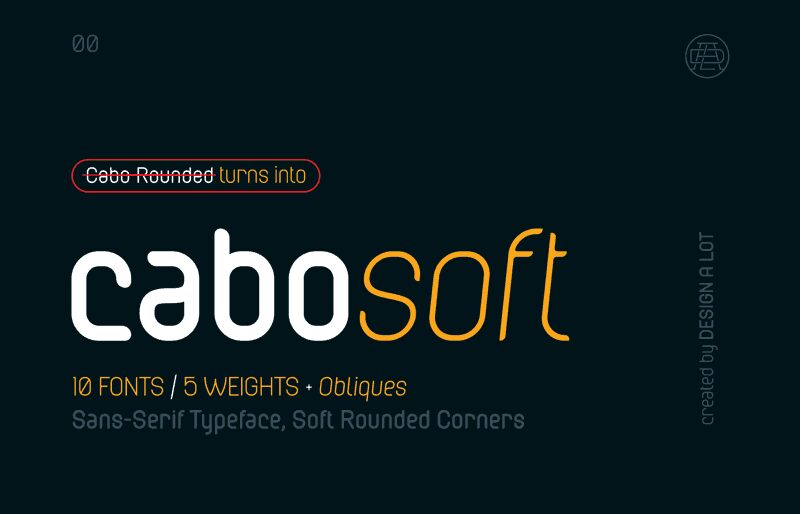
Cabo Soft Thin Demo
Cabo Soft Thin font by Design a Lot is a light sans serif display font with a modern and minimalist design. It has clean lines that form geometric shapes which embodies a contemporary aesthetic suitable for headings of all kinds. In fact, this thin yet powerful typeface is capable to empower the titles of your work effectively.
Due to its legibility, Cabo Soft Thin free font can be applied in newspapers and magazines. However, it does better when used with posters, cards, web pages (websites), mobile app interfaces or advertisements. Use the modern-looking characters in each letter to create your dream designs with this new resource!
This is a demo of our upcoming complete typeface called Cabo Soft.